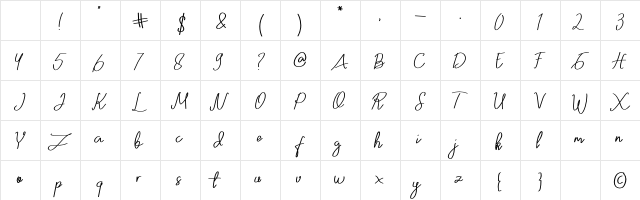
Complete Zumattan Regular glyph index. Displaying only characters natively supported by Zumattan Regular font.
Zumattan is a composed and adaptable typeface that performs quietly and consistently across a wide range of design contexts.